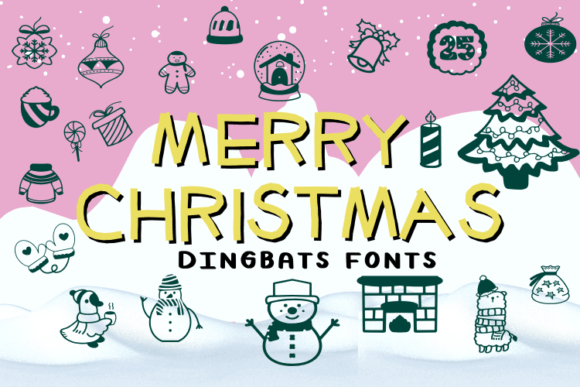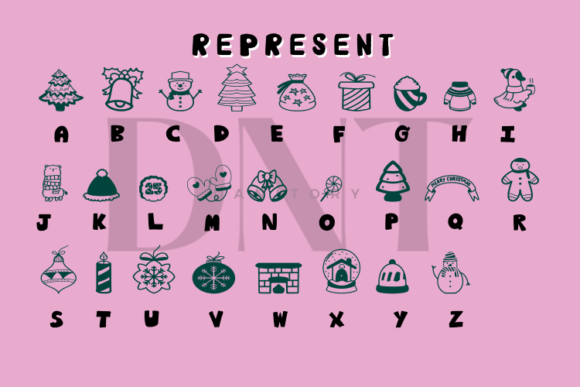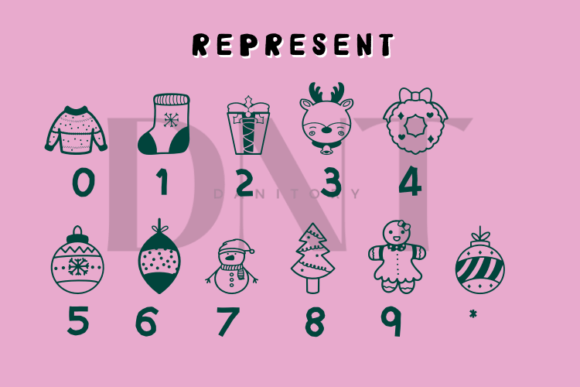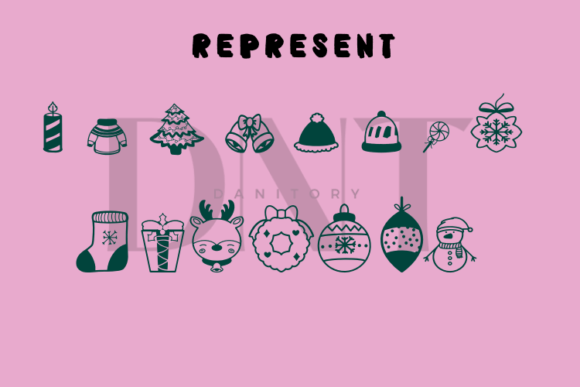
Merry Christmas
MERRY CHRISTMAS FONT SPECIMEN
Merry Christmas is an adorable dingbats font specifically designed for the upcoming Christmas season. Its charming and festive elements make it the perfect choice to add a touch of holiday spirit to your designs.
One delightful way to utilize Merry Christmas is by creating monogrammed gifts for your loved ones. By incorporating this font into your design, you can personalize and customize your presents with a unique and festive flair. Whether you’re crafting personalized ornaments, holiday cards, or even gift tags, Merry Christmas will undoubtedly enhance the overall appearance and bring joy to the recipients.
The font features a variety of delightful Christmas-themed symbols such as snowflakes, Santa Claus, reindeer, stockings, ornaments, and much more. These cute dingbats can be easily combined and arranged to create beautiful monograms or decorative elements that showcase the spirit of the holiday season.
Imagine the joy on your special someone’s face when they receive a gift adorned with a monogram designed using Merry Christmas font. The combination of the personalized touch and the font’s charming appeal will undoubtedly make your gift stand out and create a lasting impression.
So, this Christmas season, let Merry Christmas font be your creative companion as you craft thoughtful and personalized gifts for your loved ones. Its cute dingbats and festive charm will bring warmth and joy to your designs, making your holiday celebrations even more special.